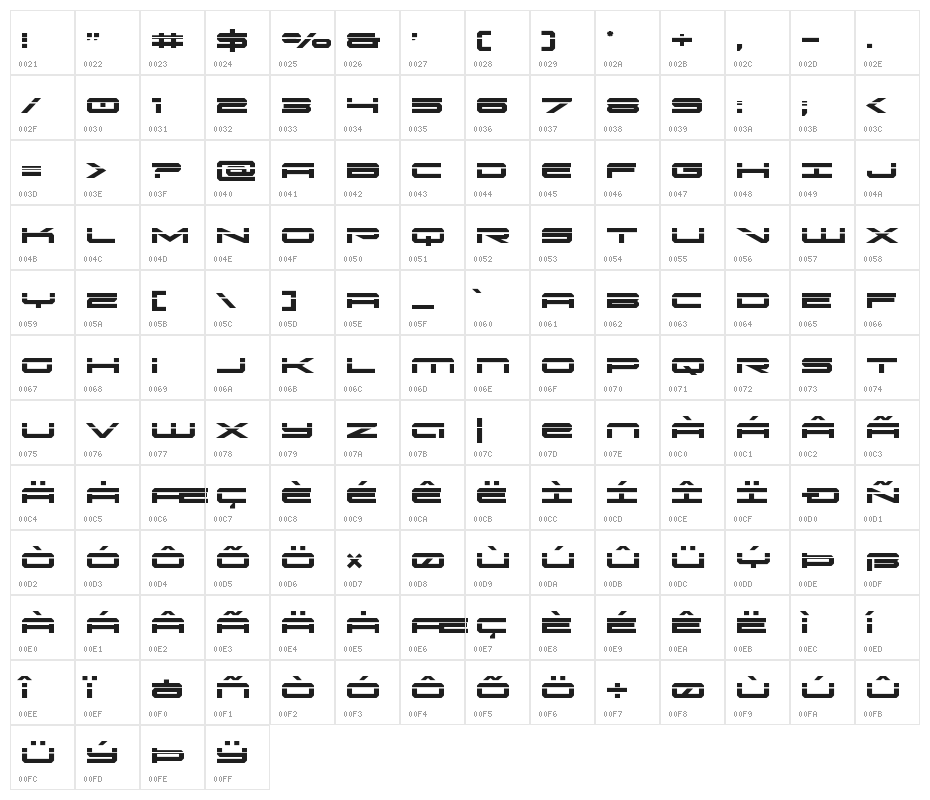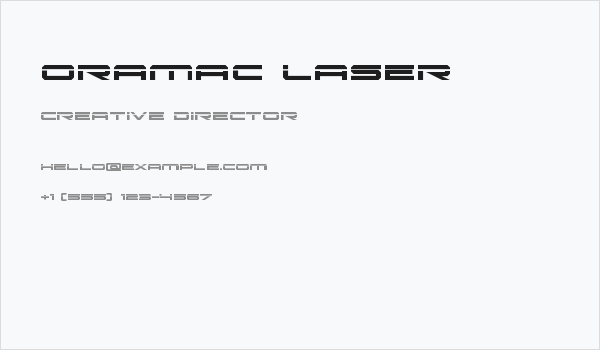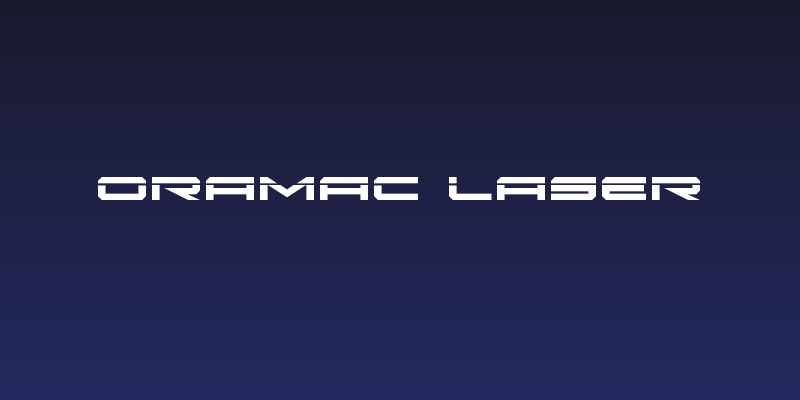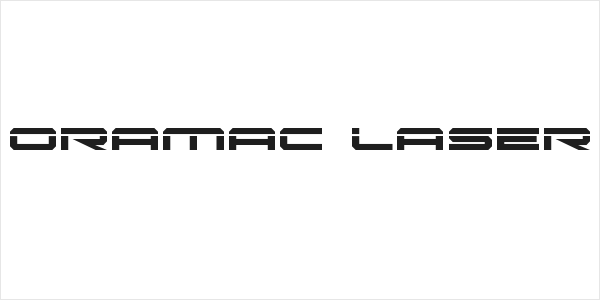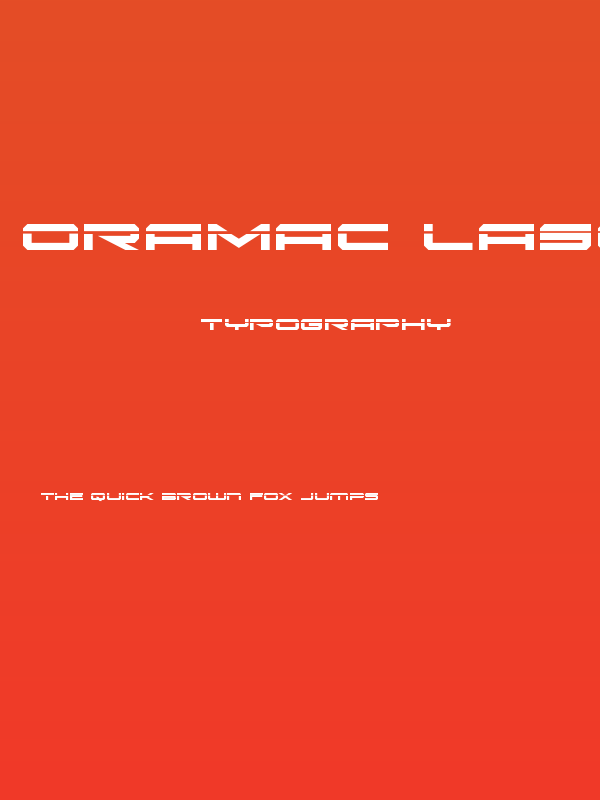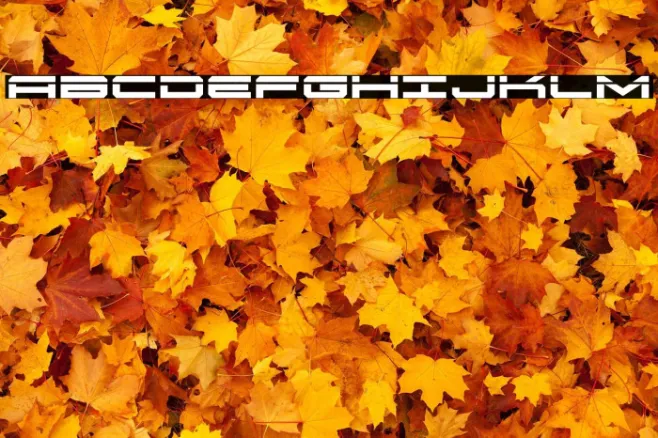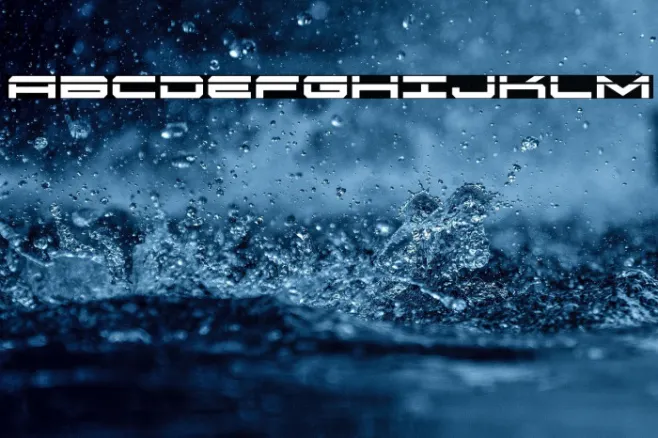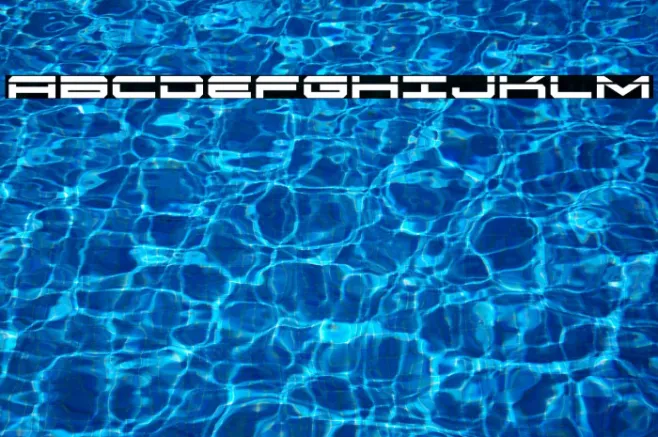
Oramac Laser Font
Oramac Laser Description
This font features a futuristic and geometric design, characterized by its sharp angles and clean lines. The uppercase and lowercase letters maintain a consistent style, with a focus on symmetry and precision. The numbers and special characters follow the same aesthetic, ensuring a cohesive look across all glyphs. The font's unique style is reminiscent of digital or sci-fi themes, making it ideal for projects that require a modern and technological feel. Its bold appearance and distinct character shapes make it stand out, while the spacing between characters is balanced, providing readability without sacrificing its distinctive style.
| Proposed Projects | Perfect for technology branding, sci-fi movie posters, video game graphics, and digital interfaces. |